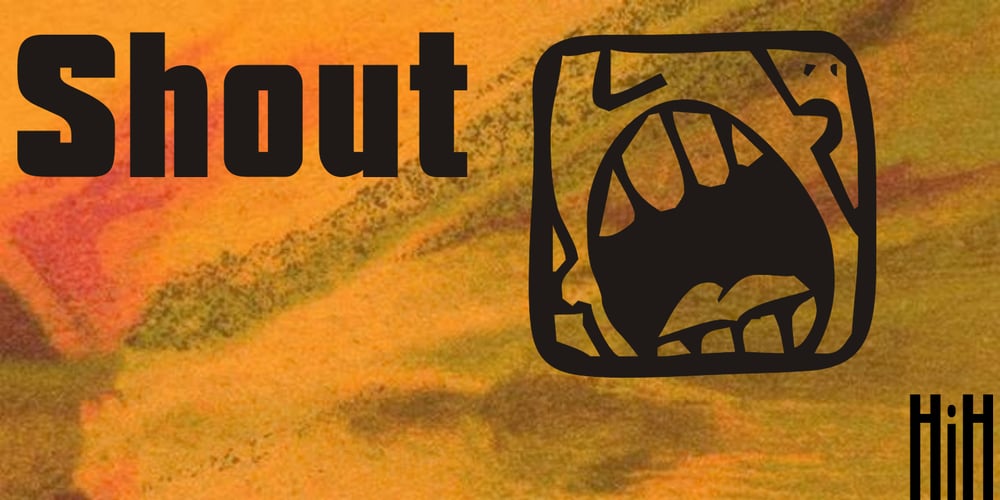
Shout Font Family was designed by published by HiH. Shout contains 1 styles and family package options. Shout is a “Hey, Look at ME” font. It is an attention-getting font for posters, flyers and ads. Its lineage includes the Haas Type Foundry’s 19th century advertising font, Kompakte Grotesk, which Jan Tschichold (1902-1974) dryly described as “extended sans serif” and which graphic designer Roland Holst (1868-1938) would have disapprovingly referred to as a “shout,” as opposed to the quiet presentation of information that he believed was the proper function of advertising. In 1963 Letraset released what appears to be an updated variation in multiple weights designed by Frederick Lambert called Compacta. Shout draws heavily on Compacta, as well as other similar fonts of the 50s and 60s like Eurostile Bold Condensed and Permanent Headline. In weight, it falls about halfway between Compacta Bold and Compacta Black, but with a relatively heavier lower case that is not so easily pushed around by the upper case. After all, one can shout while sitting down. Shout is the first font released with our new encoding, as noted in the All_customer_readme.txt. The Euro symbol has been moved to position 128 and the Zcaron/zcaron have been added at positions 142/158 respectively. Otherwise, Shout has our usual idiosyncratic glyph selection, with the German ch/ck instead of braces, a long s instead of the Greek mu and our usual Hand-in-Hand symbol. There are also left and right glyphs of a big mouth ]ing (135/137) and left and right glyphs of an angry man shouting (172/177). Please use Shout with discretion. Folks get tired of being yelled out. After awhile, they stop listening. Shout ML represents a major extension of the original release, with the following changes: 1. Added glyphs for the 1250 Central Europe, the 1252 Turkish and the 1257 Baltic Code Pages. Add glyphs to complete standard 1252 Western Europe Code Page. Special glyphs relocated and assigned Unicode codepoints, some in Private Use area. Total of 355 glyphs. 2. Added OpenType GSUB layout features: pnum, ornm, liga, hist & salt. 3. Added 266 kerning pairs. 4. Revised vertical metrics for improved cross-platform line spacing. 5. Revised hyphen, dashes & math operators. 6. Minor refinements to various glyph outlines. 7. Inclusion of both tabular & proportional numbers. Please note that some older applications may only be able to access the Western Europe character set (approximately 221 glyphs). The zip package includes two versions of the font at no extra charge. There is an OTF version which is in Open PS (Post Script Type 1) format and a TTF version which is in Open TT (True Type)format. Use whichever works best for your applications.